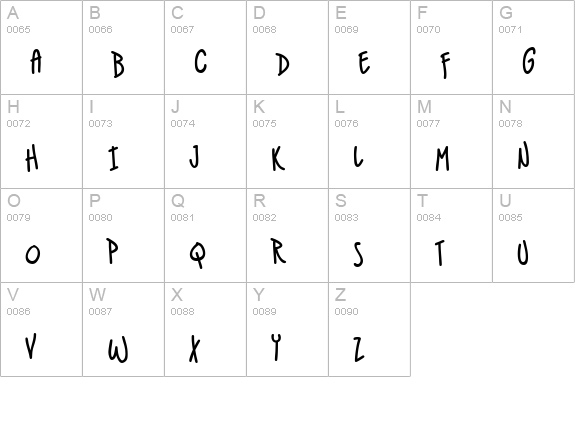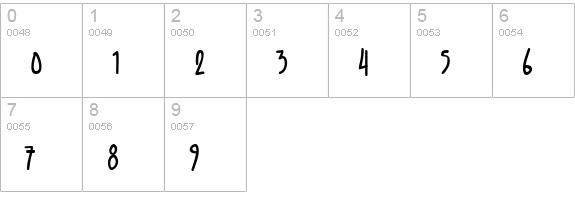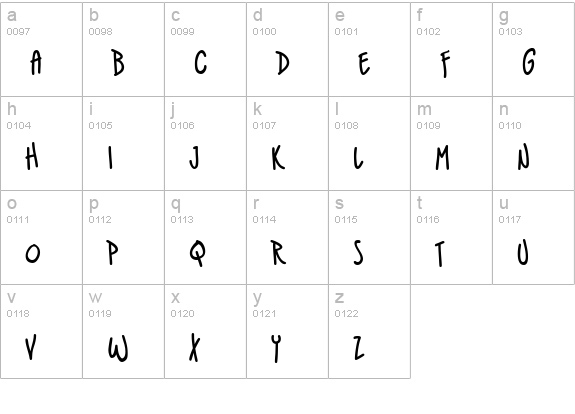
IndieStar BB font is a whimsical and charming typeface that exudes a sense of creativity and individuality. Its quirky design and hand-drawn aesthetic make it perfect for adding a touch of personality to any project. Whether you're working on a poster, logo, or social media graphic, IndieStar BB will help your text stand out and capture attention. What's even better is that IndieStar BB font is completely free to download at FontsMarket.com. This means you can easily access this unique font and start using it in your designs without any cost. Don't miss out on the opportunity to enhance your creations with the playful and distinctive style of IndieStar BB font. Download it today and let your creativity shine!